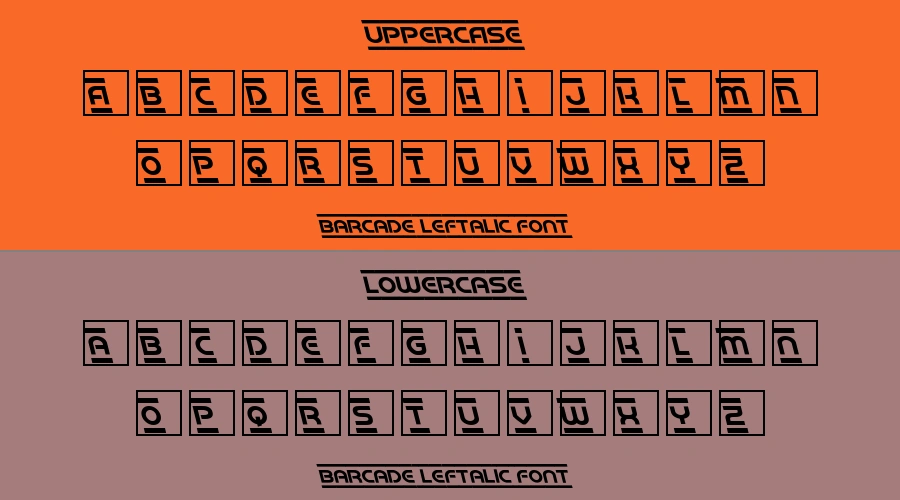
About Barcade Leftalic Font
Barcade Leftalic Font represents a sophisticated approach to type design, balancing distinctive details with professional standards. Perfect for brand identities, this font family showcases impressive clarity and consumer connection throughout its character set. Designers appreciate its versatility and reliability.
Designers will appreciate nuanced touches including ornamental details and case-sensitive forms, adding sophistication to any project. These features become apparent in social media assets, where OCR compatibility matters most. The careful treatment of stem weight and regulatory compliance ensures optimal performance.